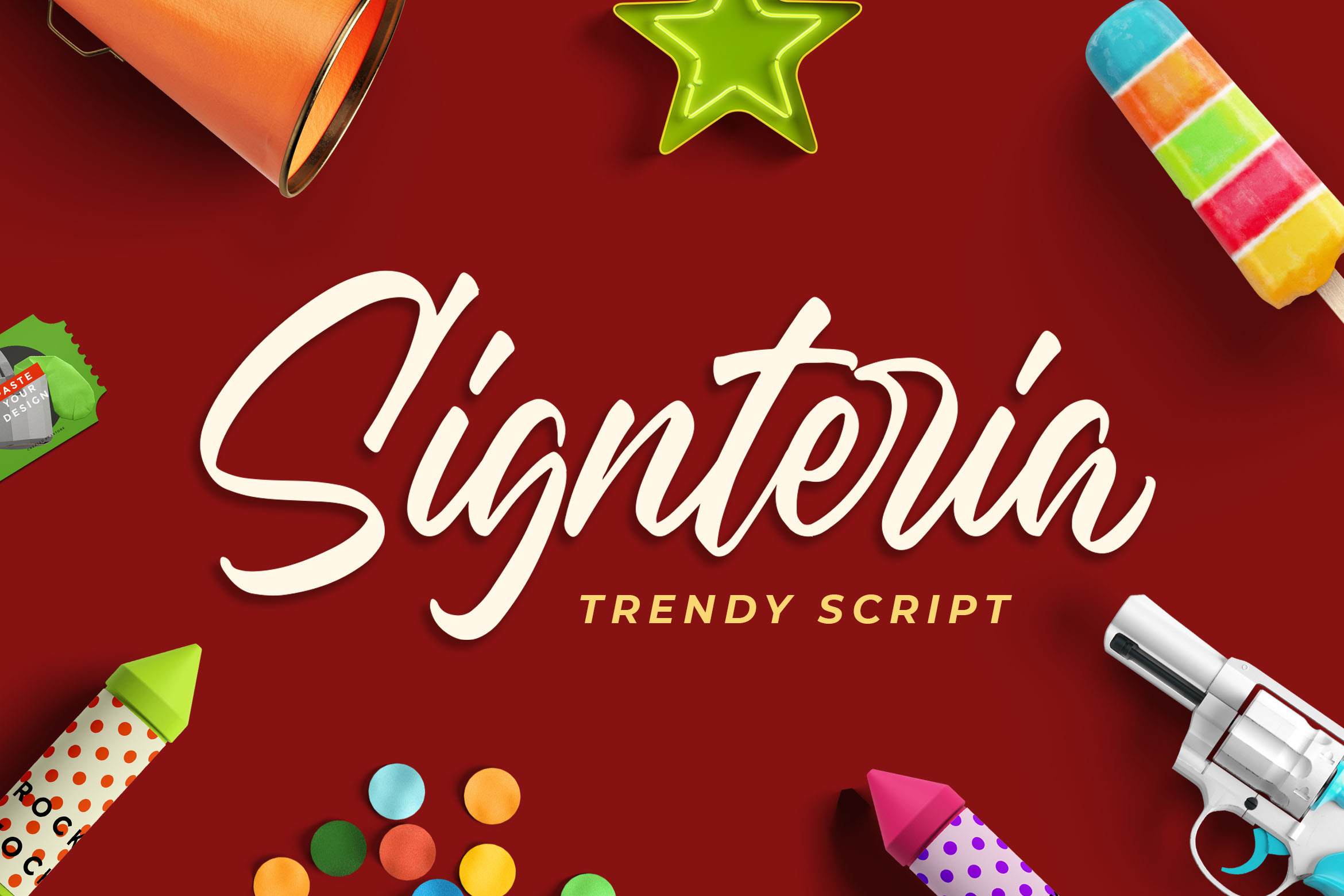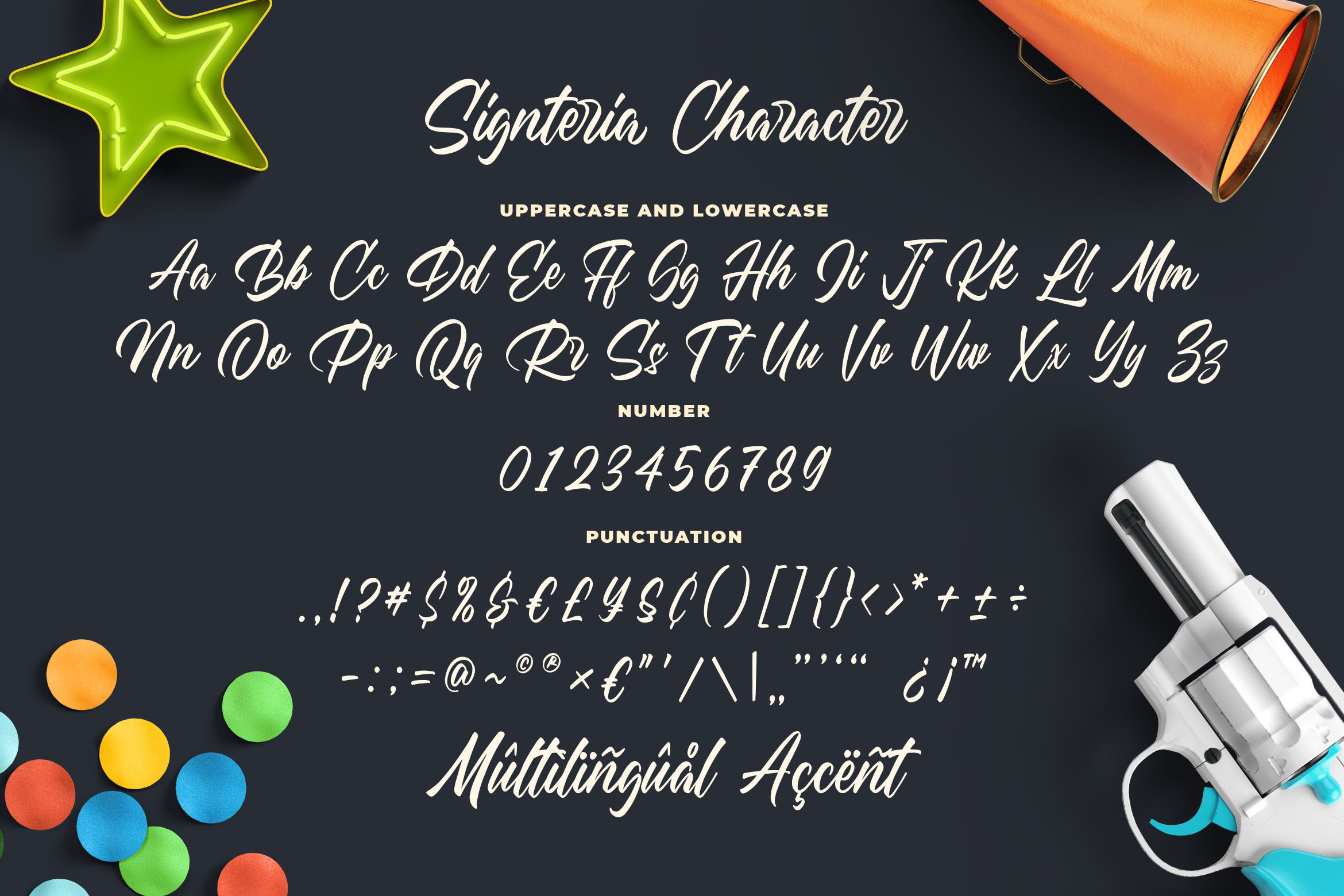
Introducing of our new product the name is Signteria Trendy Script Font. Signteria inspired by Brush calligraphy this font is a fun theme very good for signature, poster, fashion, wedding, branding etc
MULTILINGUAL ACCENT :
ŽžŠŒšŸÀÁÂÃÄÅÆÇÈÉÊËÌÍÎÏÐŁÑÒÓÔÕÖØÙÚÛÜÝßàáâãäåæçèéêëìíîïłñòóôõöøùúûüýÿ
- Uppercase
- Lowercase
- Number
- Punctuation
- Multilingual